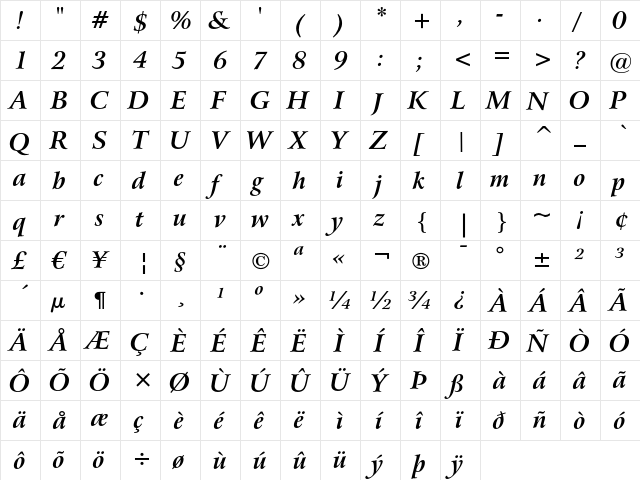
Design Context for Bitstream Arrus Typeface
Bitstream Arrus takes a measured approach to typography — its balanced proportions and neutral character make it a reliable workhorse for both digital and print work. The slanted form adds forward momentum and visual energy. The heavy weight commands attention and anchors typographic hierarchies.